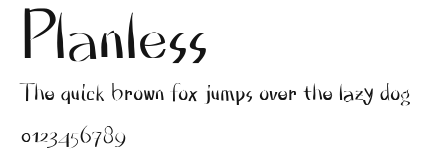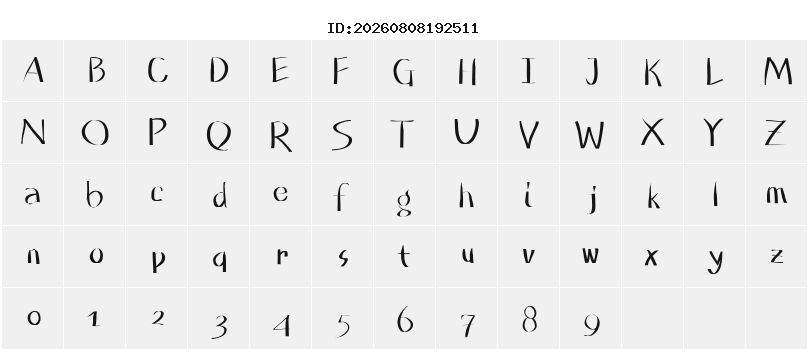
• Font Name: Planless
• Full Font Name: Planless
About Planless.ttf
Planless.ttf is a modern, elegant sans-serif font designed for ultimate readability and visual harmony. Perfect for branding, headlines, web design, and print materials.